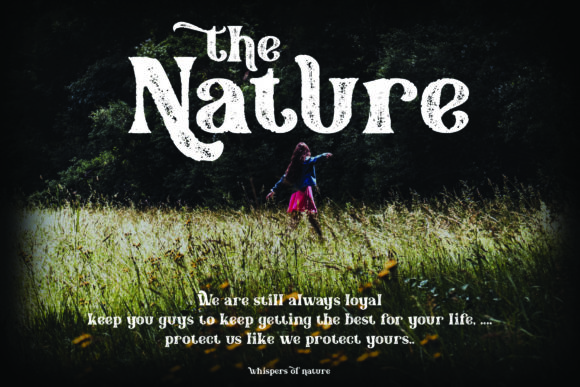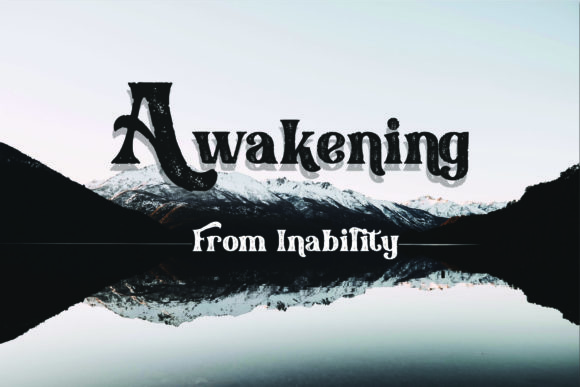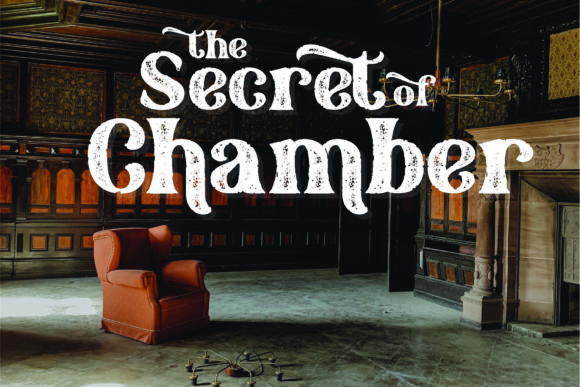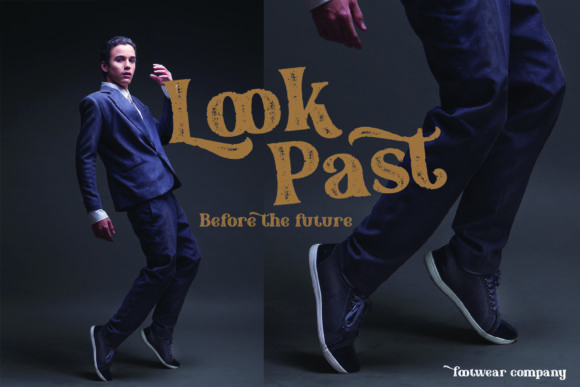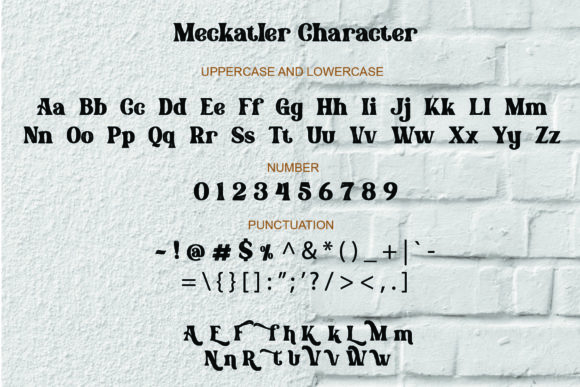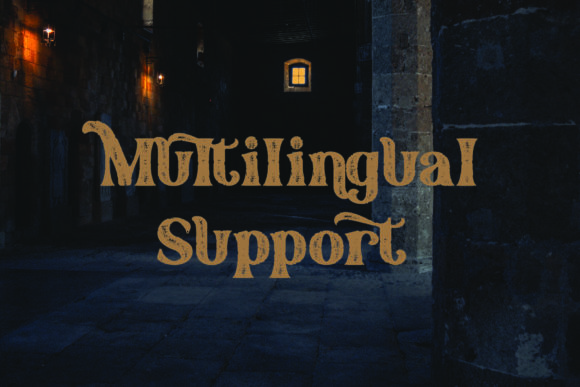
Introduction to Meckatler Font
Meckatler is a retro, rough lettered display font.
Add this bold and imposing font to each of the creations that require a strong touch .
Key Features of Meckatler Font